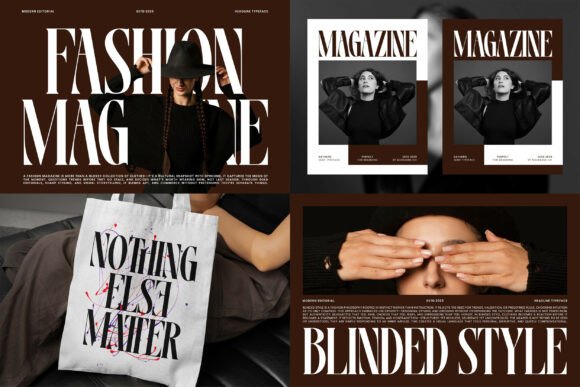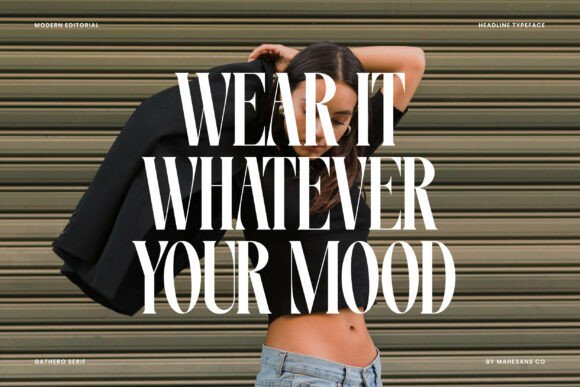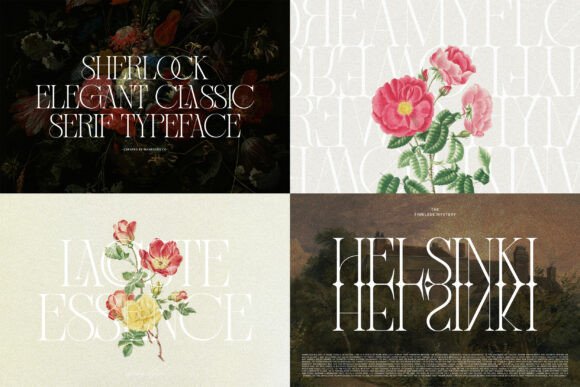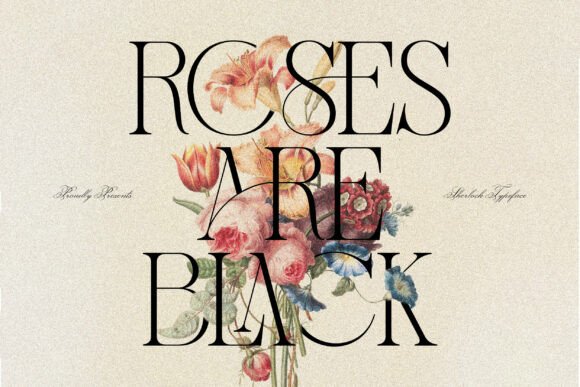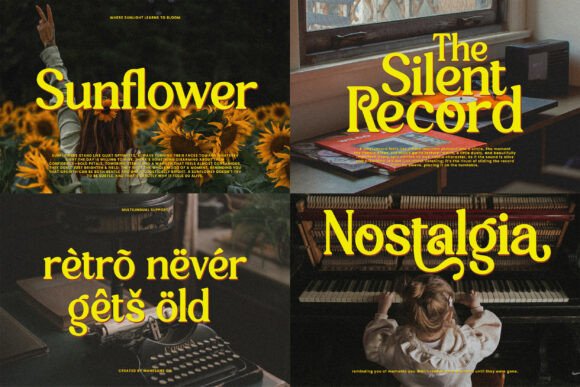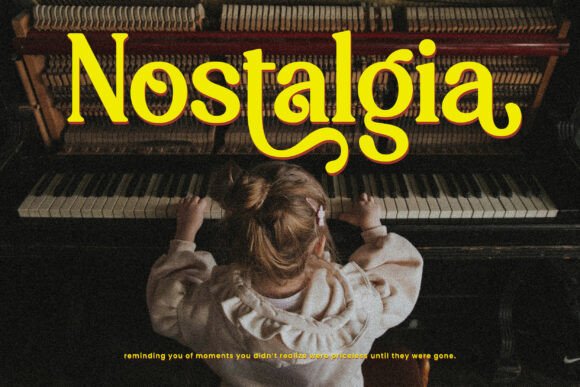
Unlock the Power of Elegance with the Headline Serif Bundle Font
Are you a designer looking for a font that exudes impact, elegance, and versatility? Look no further than the Headline Serif Bundle Font, a curated collection of 12 best-selling headline serif fonts that are sure to elevate your design game. This exclusive bundle is crafted for designers who want to make a statement with their work, providing a comprehensive toolkit for creating luxury magazine covers, elite branding, and professional portfolios.
What is the Headline Serif Bundle Font?
The Headline Serif Bundle Font is a carefully curated collection of 12 high-end headline serif fonts, each designed to provide maximum editorial impact. This bundle features high-contrast serifs, elegant ligatures, and sophisticated alternates that allow you to craft bespoke visual identities with ease. Whether you’re working on a luxury magazine cover, a high-end brand identity, or a professional portfolio, this font bundle has everything you need to create stunning, high-impact designs.
Key Features of the Headline Serif Bundle Font
- 12 Best-Selling Fonts: The Headline Serif Bundle Font features 12 of our best-selling headline serif fonts, each carefully crafted to provide a unique and elegant look.
- High-Contrast Serifs: The fonts in this bundle feature high-contrast serifs that add a touch of sophistication and elegance to any design.
- Elegant Ligatures: The fonts in this bundle include elegant ligatures that allow you to create beautiful, flowing text that is a joy to read.
- Sophisticated Alternates: Each font in the bundle includes sophisticated alternates that give you the flexibility to create bespoke visual identities.
- Maximum Editorial Impact: The fonts in this bundle are designed for maximum editorial impact, making them perfect for large-scale headlines and high-end designs.
Why Choose the Headline Serif Bundle Font?
There are many reasons why designers love the Headline Serif Bundle Font. Here are just a few:
- Versatility: The Headline Serif Bundle Font is incredibly versatile, making it perfect for a wide range of design projects, from luxury magazine covers to elite branding and professional portfolios.
- Elegance: The fonts in this bundle are incredibly elegant, making them perfect for designers who want to add a touch of sophistication to their work.
- Impact: The fonts in this bundle are designed for maximum editorial impact, making them perfect for large-scale headlines and high-end designs.
- Convenience: The Headline Serif Bundle Font is a comprehensive collection of 12 fonts, making it a convenient and cost-effective solution for designers who need a range of high-end fonts.
How to Use the Headline Serif Bundle Font
The Headline Serif Bundle Font is incredibly easy to use. Here are a few tips to get you started:
- Use for Large-Scale Headlines: The fonts in this bundle are designed for large-scale headlines, making them perfect for luxury magazine covers, billboards, and other high-impact designs.
- Experiment with Ligatures: The fonts in this bundle include elegant ligatures that can add a touch of sophistication to your text.
- Try out Alternates: Each font in the bundle includes sophisticated alternates that give you the flexibility to create bespoke visual identities.
The Headline Serif Bundle Font is a comprehensive collection of 12 high-end headline serif fonts that are sure to elevate your design game. With its high-contrast serifs, elegant ligatures, and sophisticated alternates, this font bundle has everything you need to create stunning, high-impact designs. Whether you’re working on a luxury magazine cover, a high-end brand identity, or a professional portfolio, this font bundle is the perfect solution. So why wait? Download the Headline Serif Bundle Font today and start creating stunning designs that make an impact!